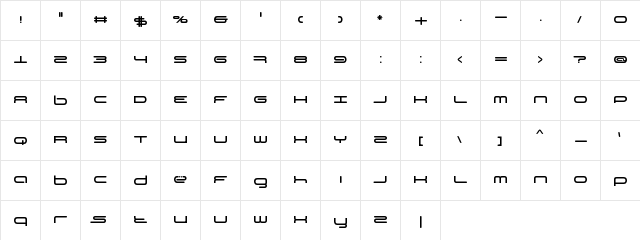
Ti?sto By Sim?n Barja Caride Regular
Design Context for Ti?sto By Sim?n Barja Caride Typeface
Ti?sto By Sim?n Barja Caride takes a measured approach to typography — its balanced proportions and neutral character make it a reliable workhorse for both digital and print work.